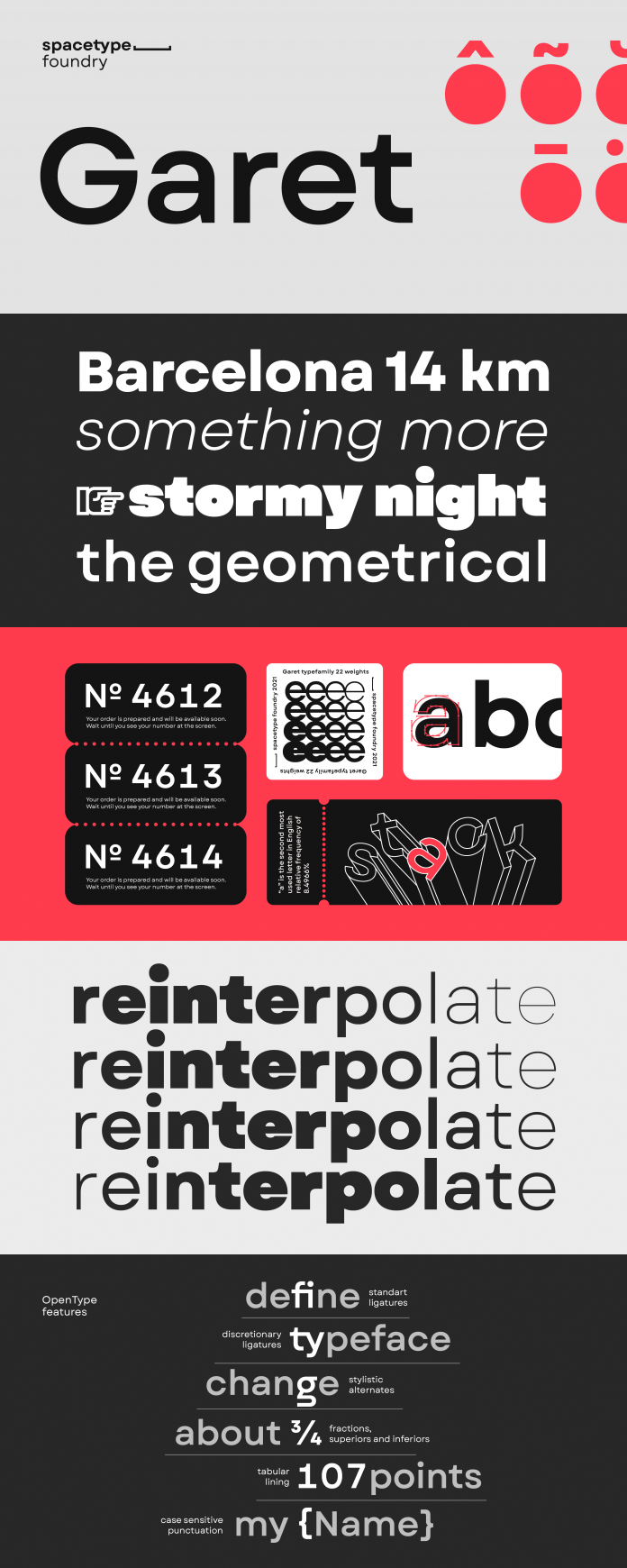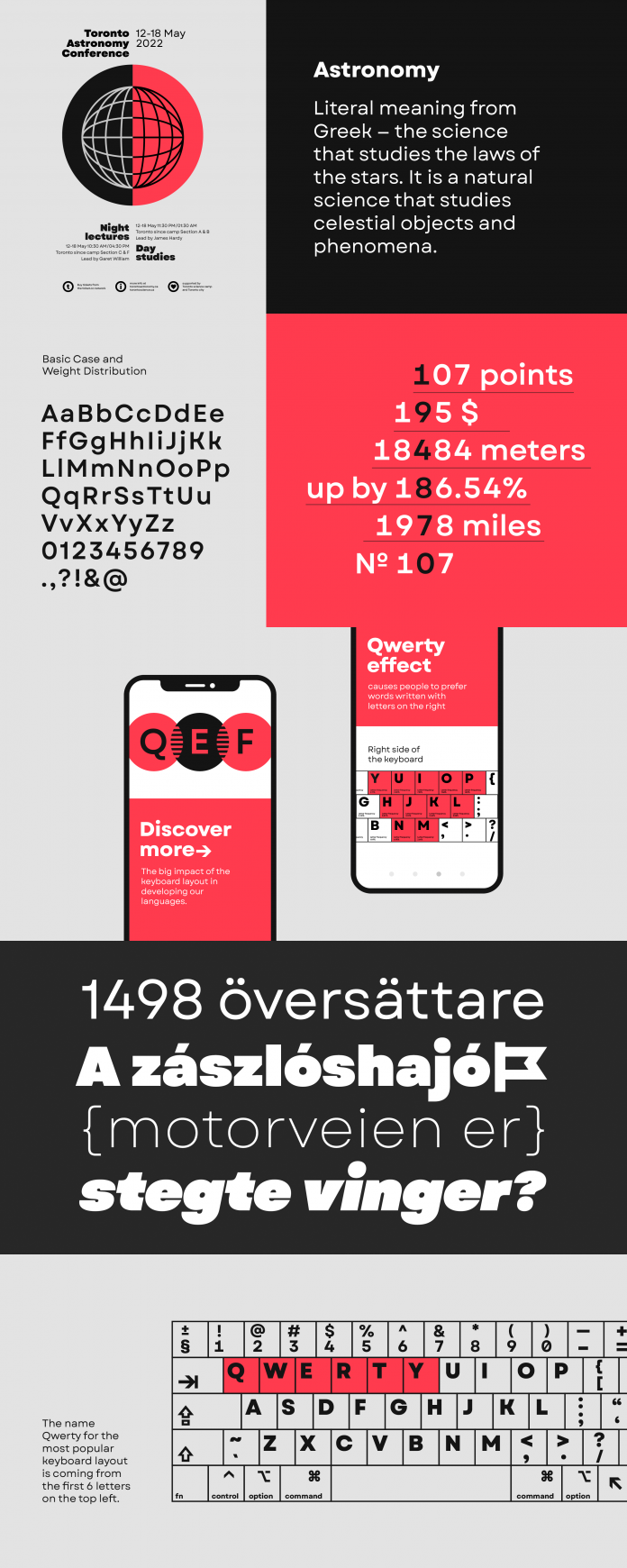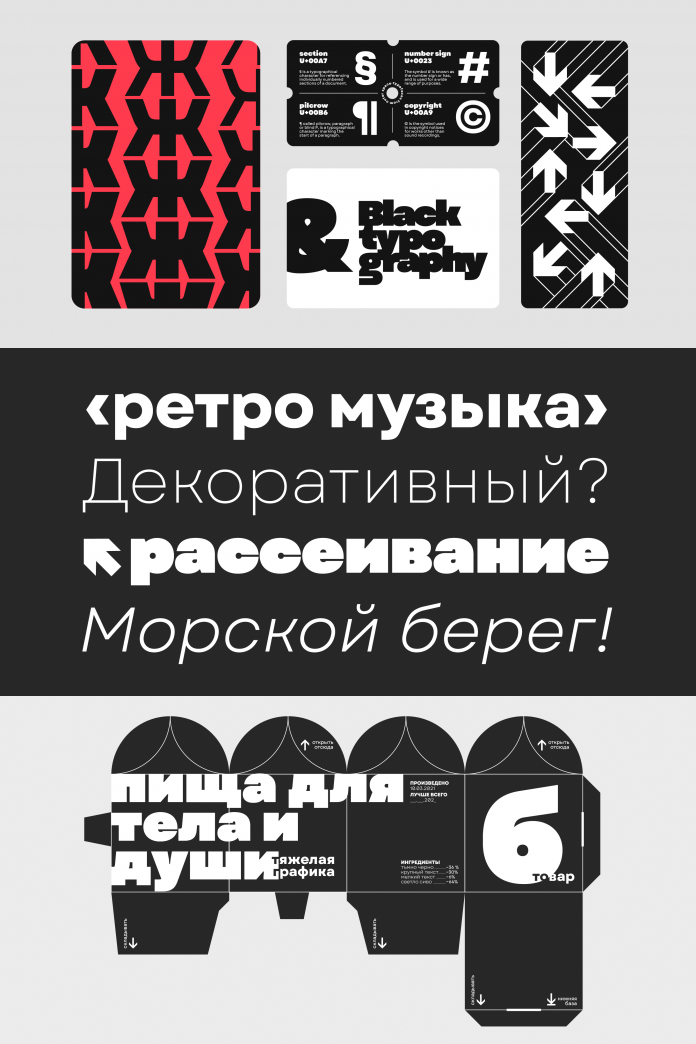
Garet, a modern geometric sans serif font family characterized by its high x-height as well as clean and soft letterforms with a smooth masculine tone.
Designed by Mirela Belova and Stan Partalev for foundry Spacetype, Garet is a new sans serif font family with a technical but friendly style. The complete Garet font family comprises 11 weights ranging from Hairline to Fat. All weights are accompanied by matching true italics. In addition, all styles are combined into one variable font that will give you countless opportunities to explore and express your typographic work without the restrictions of predefined weights. The Garet font family supports multiple languages including all common Latin and Cyrillic-based characters. Furthermore, it is equipped with several alternative stylistic sets and an extensive list of OpenType features including standard and discretionary ligatures, tabular and small figures, fractions, language localizations, case-sensitive punctuation, just to name a few.
The Garet typeface works great for both print and screen design including editorial work, branding, packaging, app, mobile, and web design. For further information, just click on the following link.